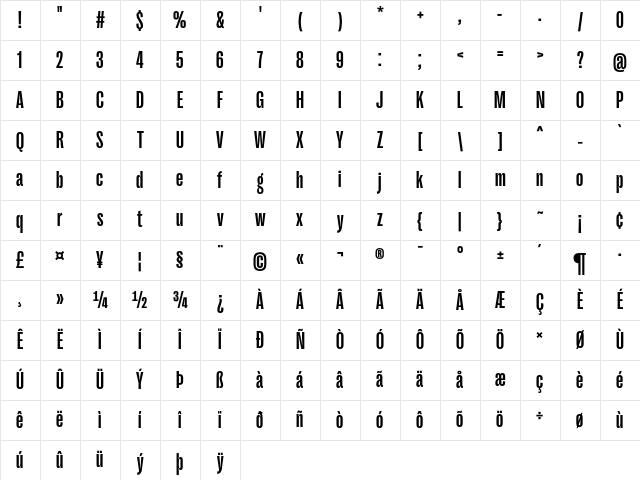
Right Grotesk Tight Bold
Foundry: Alexander Slobzheninov
Designer: Alexander Slobzheninov
Design Context for Right Grotesk Tight
Right Grotesk Tight takes a clean, functional approach - its unadorned letterforms prioritise legibility and work reliably across screen and print environments. Its bold stroke weight gives it real presence on the page.
Font Pairing: Use Right Grotesk Tight for headlines alongside a lighter-weight sans or serif for body copy to establish clear visual hierarchy.
Pro Tip: Use Right Grotesk Tight for UI labels, navigation, and short-form body copy where clean legibility is the priority.
Who designed the Right Grotesk Tight Bold font?